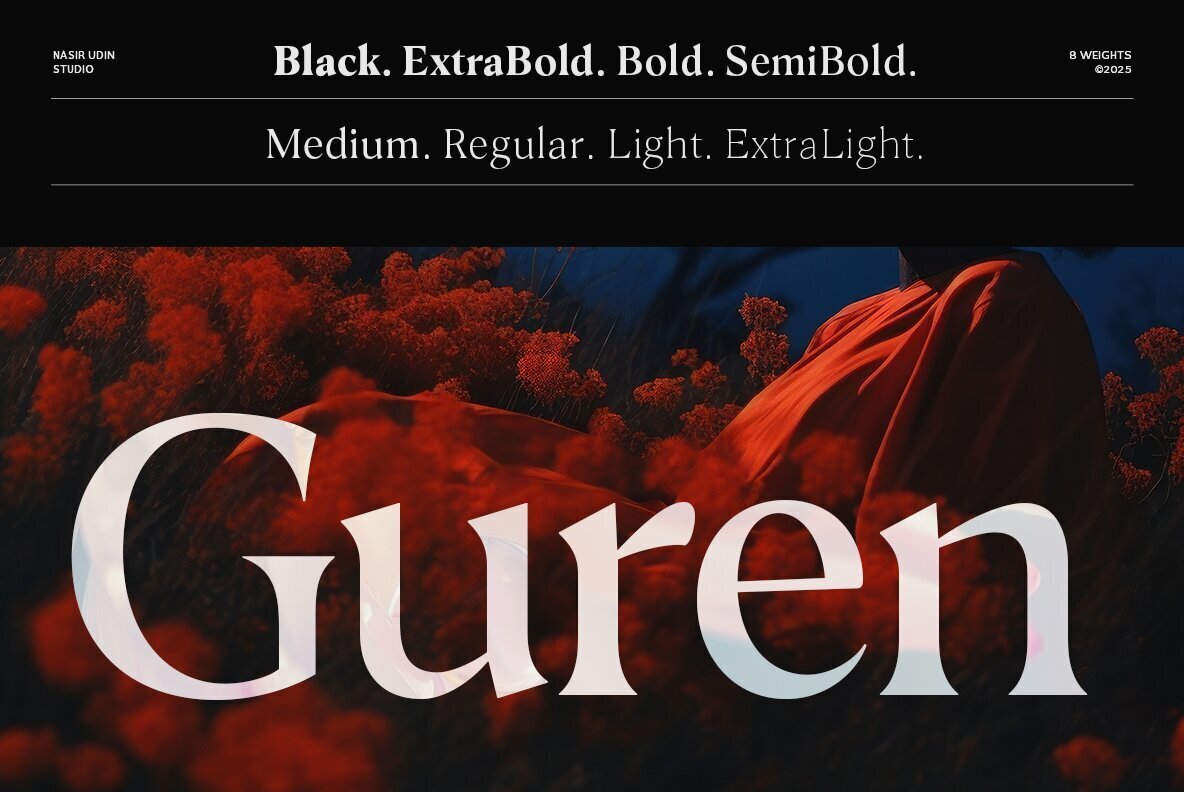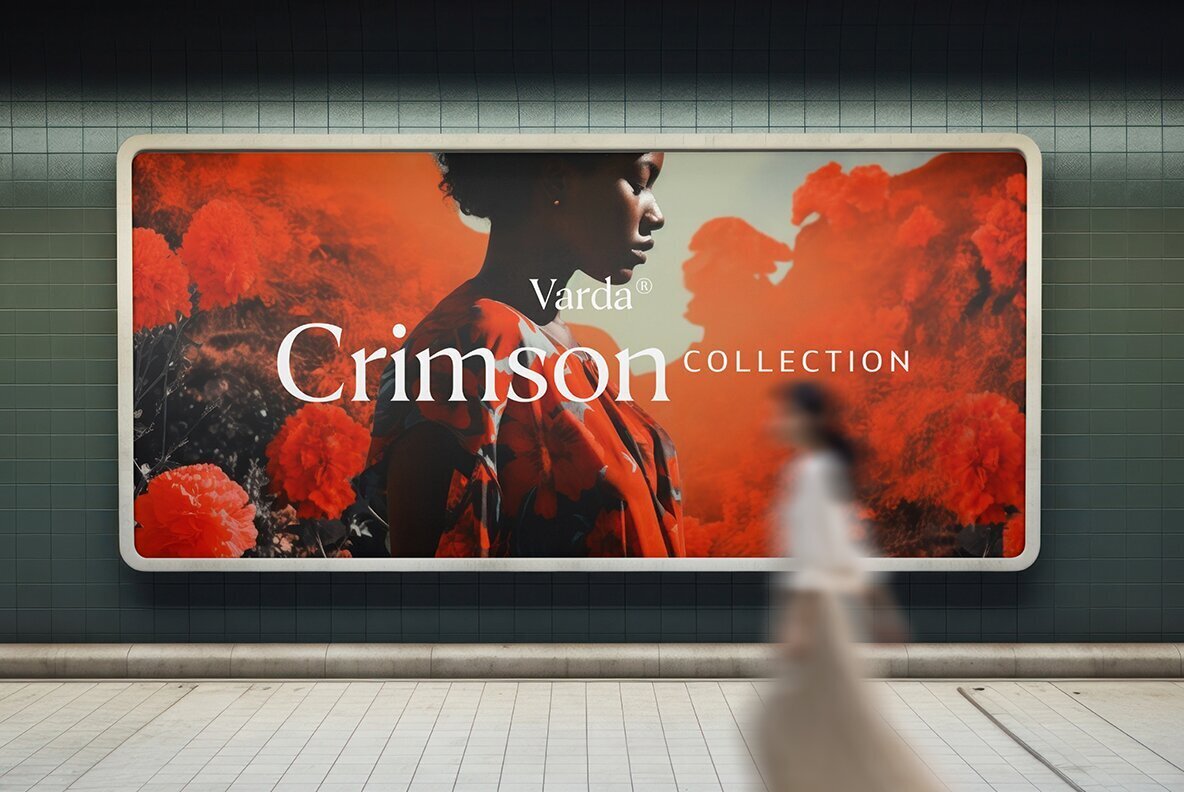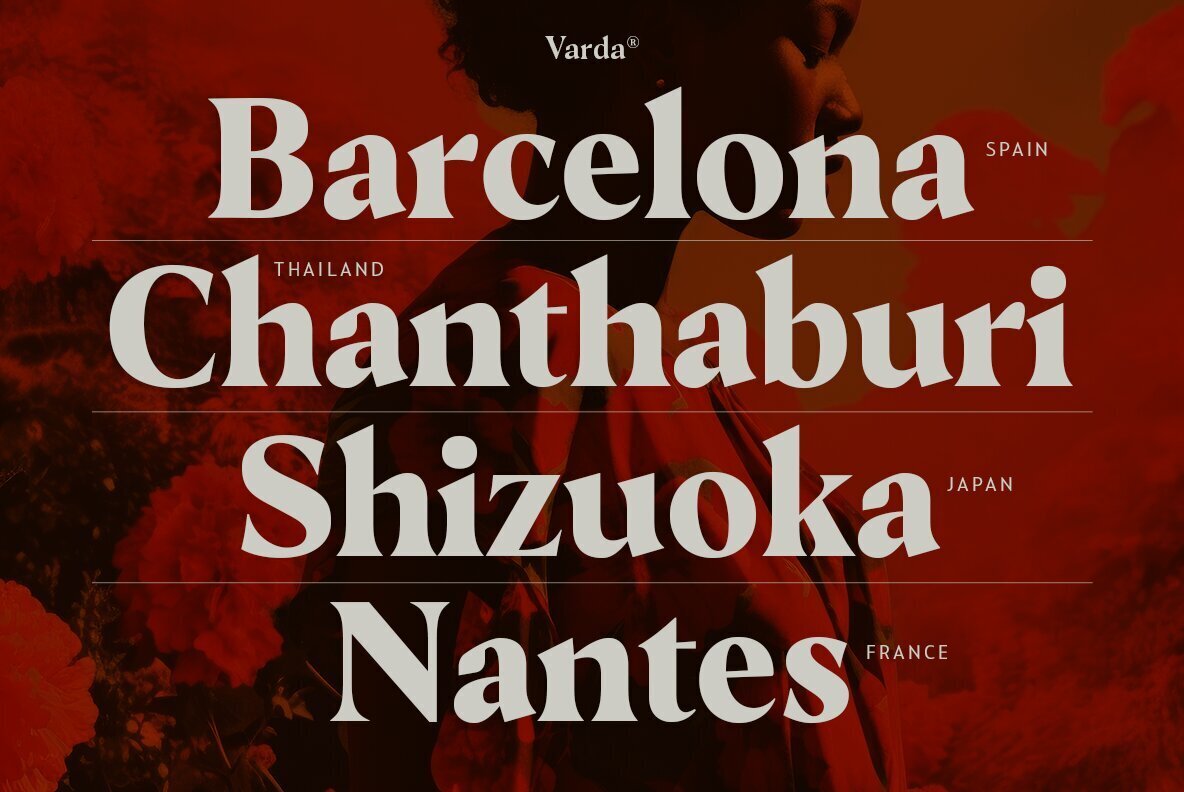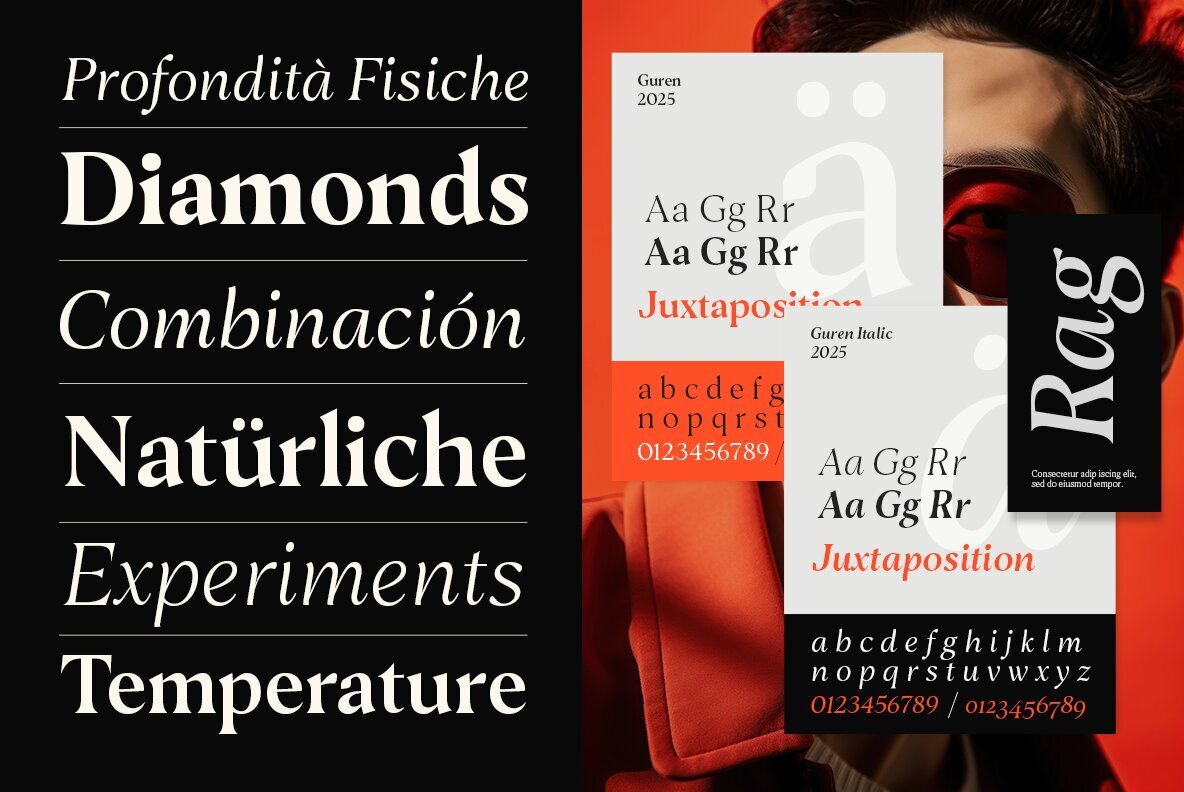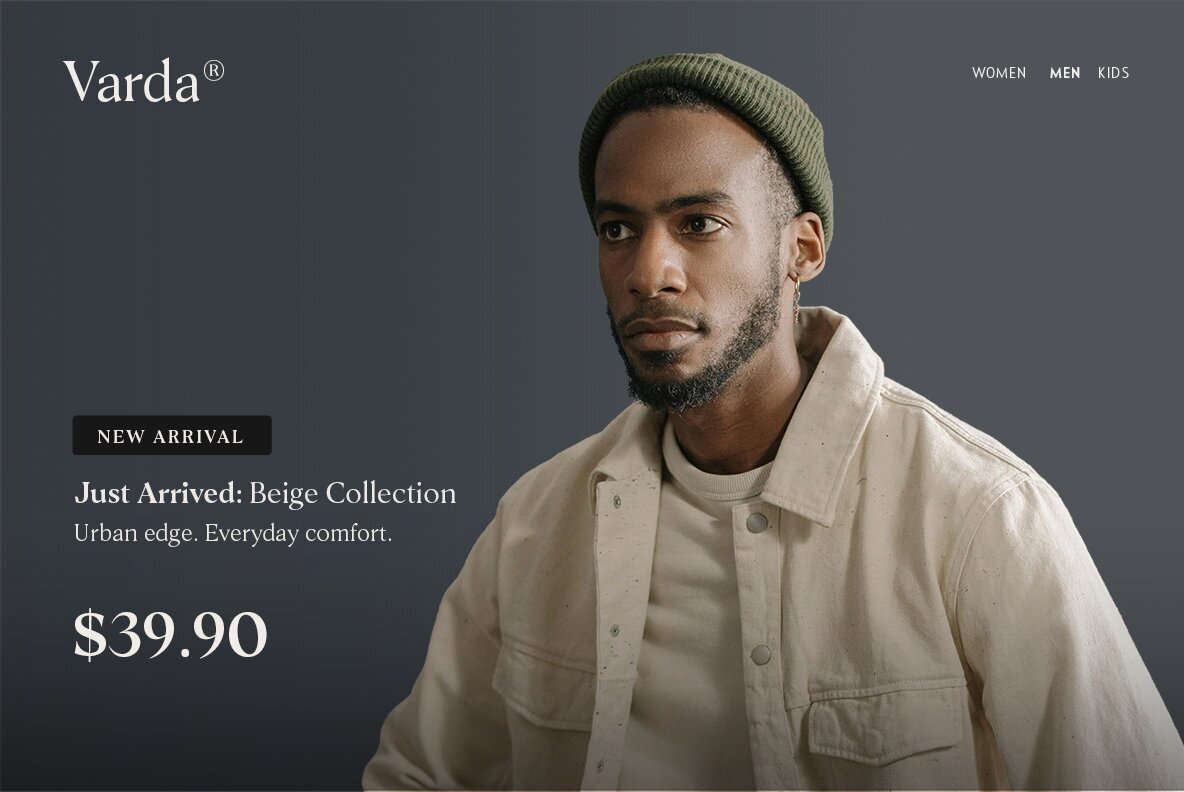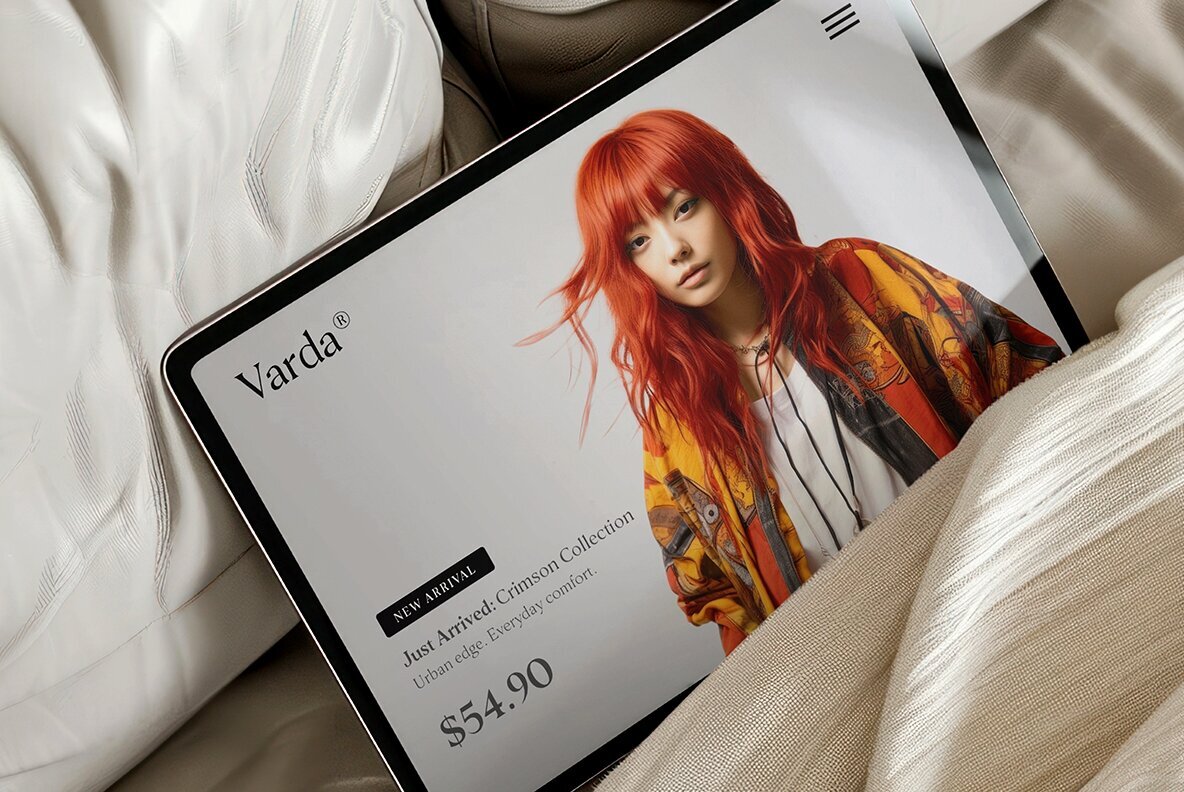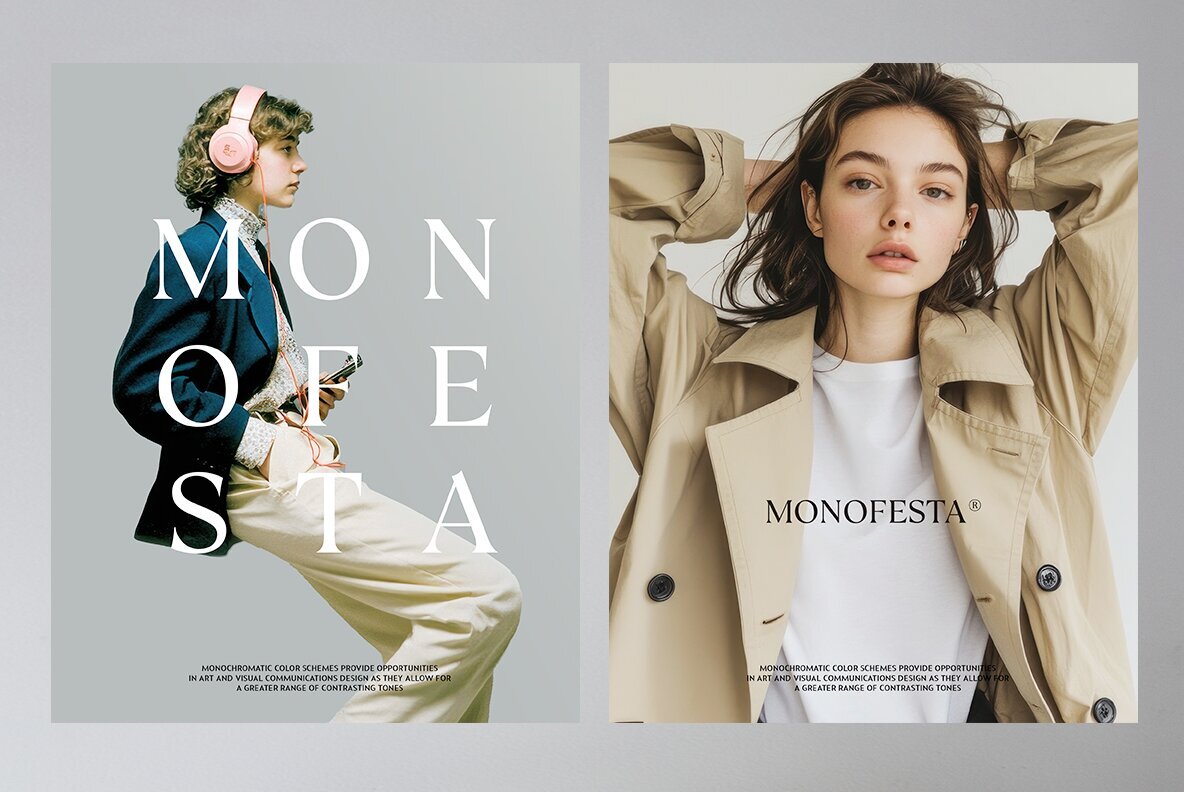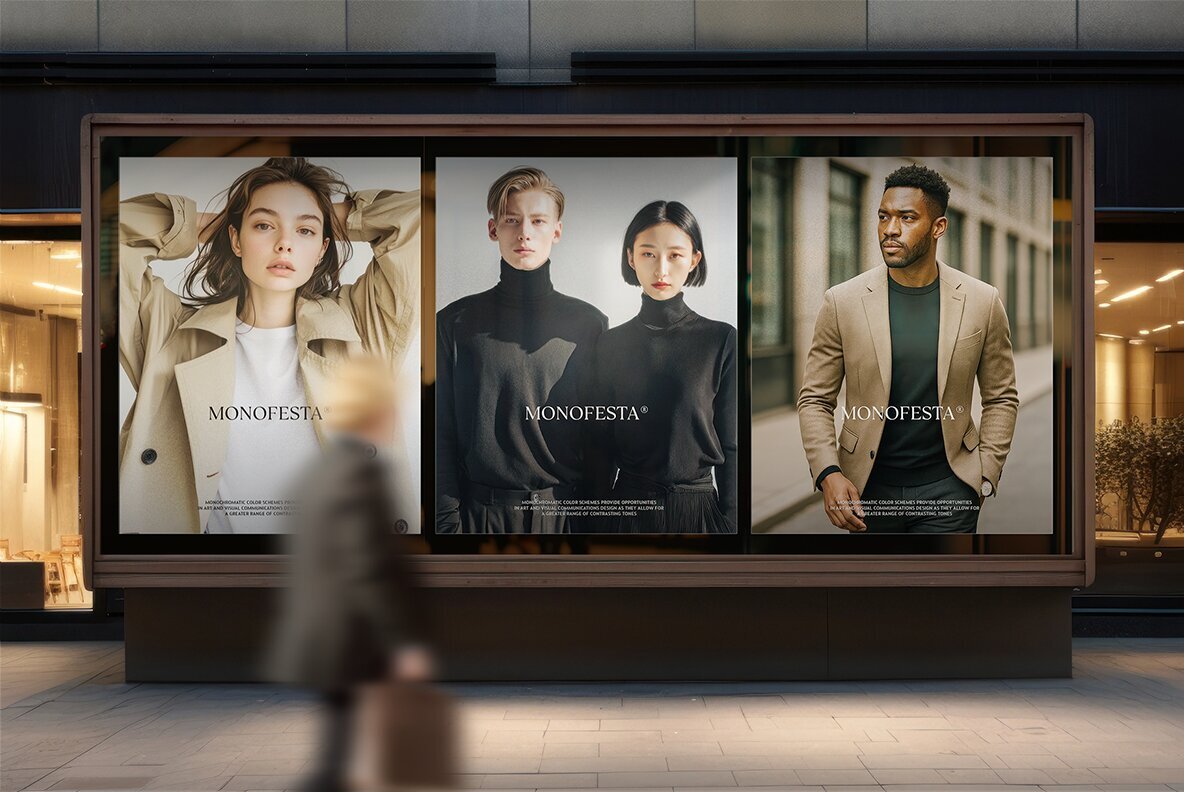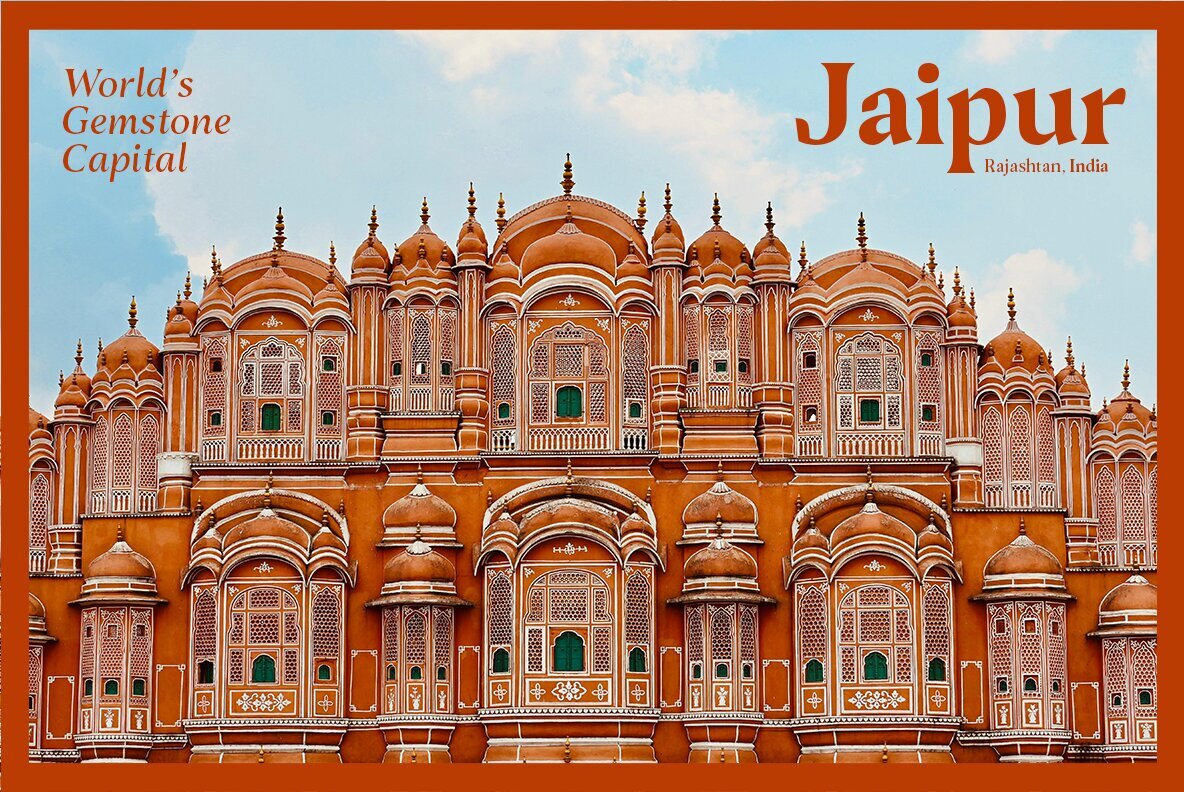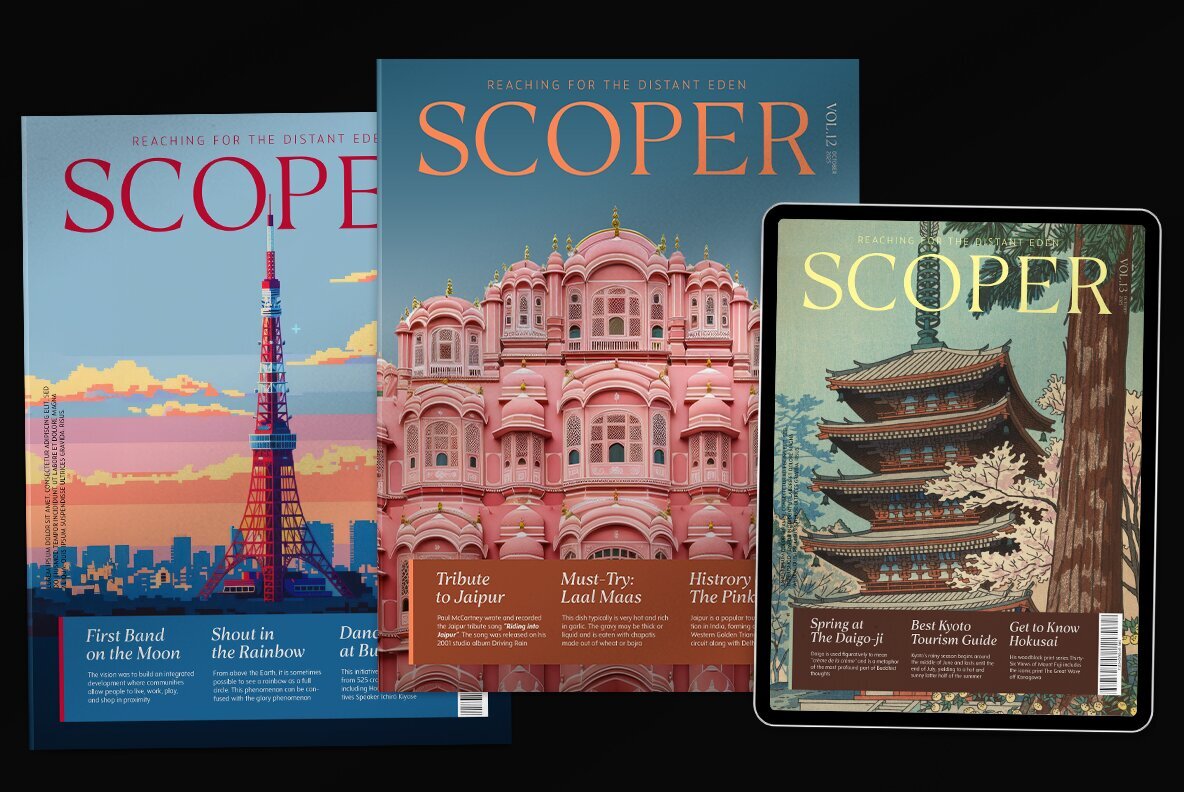
Guren Font
Discover the elegance of Guren, a sophisticated modern flared serif font family. Drawing inspiration from transitional and contemporary typefaces, it features a high-contrast stem ratio for a distinguished look and an elevated x-height for enhanced readability. With 16 unique styles spanning 8 weights, from ExtraLight to Black, Guren offers versatile options suitable for a wide range of graphic and editorial projects.Guren: Modern Flared Serif Font Family